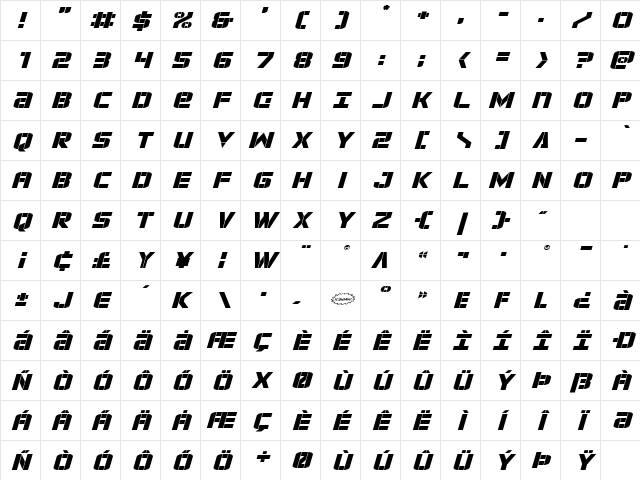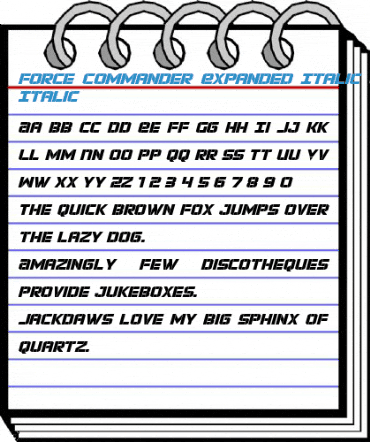
Complete Force Commander Expanded Italic glyph index. Displaying only characters natively supported by Force Commander Expanded Italic font.
Force Commander Expanded Italic brings high-energy athletic personality to the page - its confident, muscular forms are built for impact. The slanted form adds forward momentum and visual energy.
Pro Tip: Use Force Commander Expanded Italic in all-caps headlines where its athletic energy can fully express itself. Pair with a solid, simple sans for supporting text.